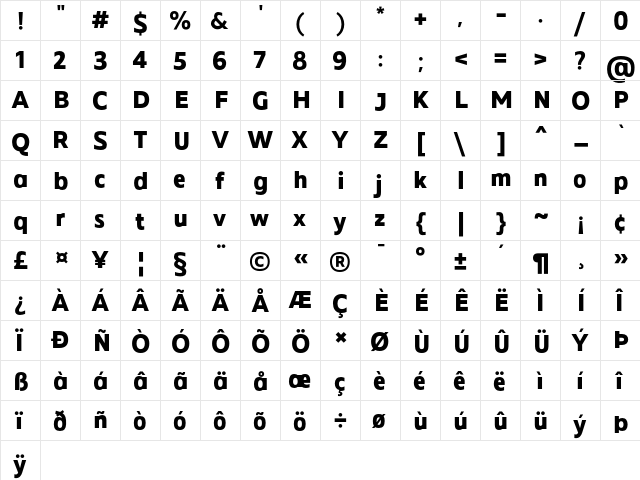
MADE Future X Bold
Bold · MadeType MadeType ·
Foundry MadeType
DesignerMadeType
Design Context for MADE Future X Typeface
MADE Future X channels digital-age aesthetics through its sharp, structured letterforms — ideal for brands that want to signal innovation. The heavy weight commands attention and anchors typographic hierarchies.
Pro Tip: Try MADE Future X with generous letter-spacing in UI labels and navigation — the geometric forms benefit from room to breathe.